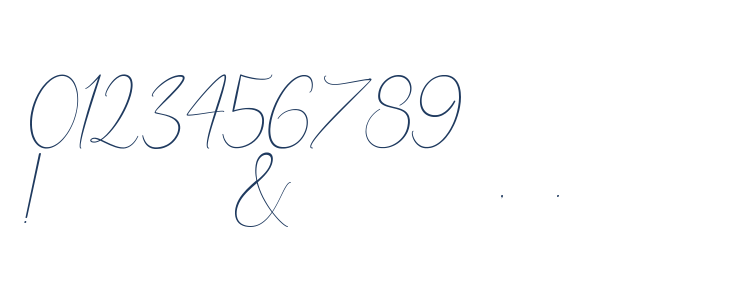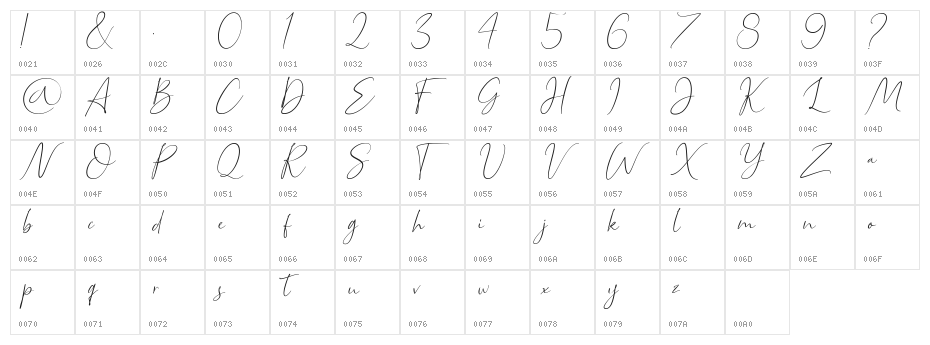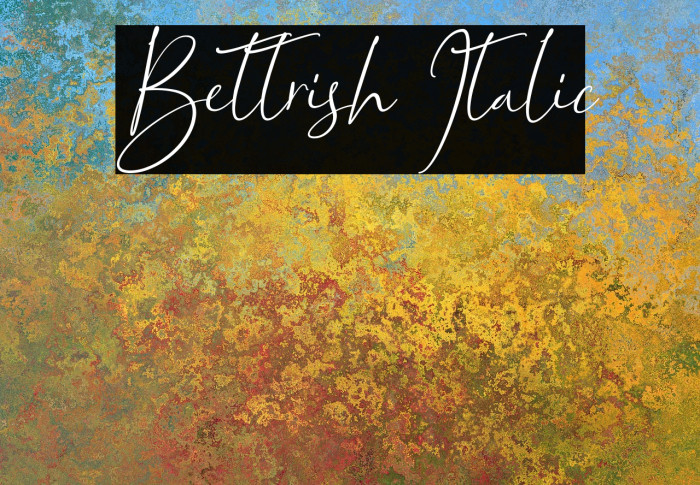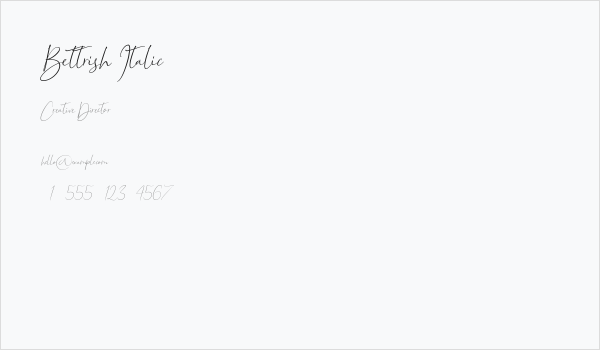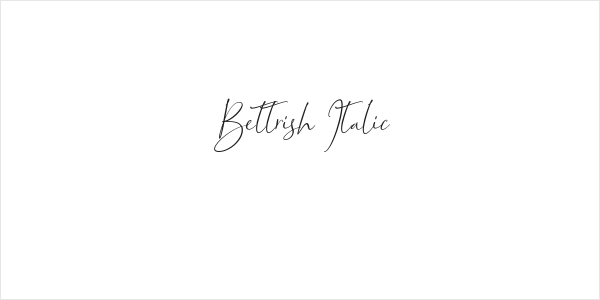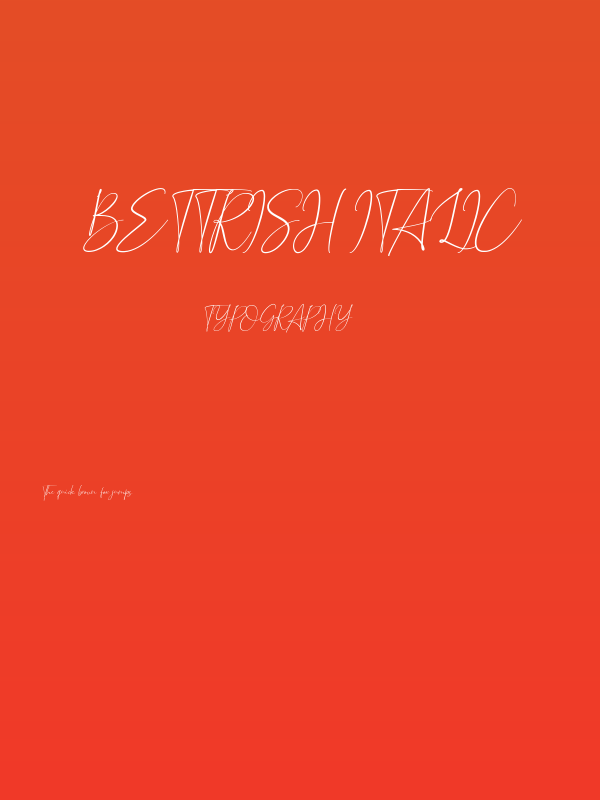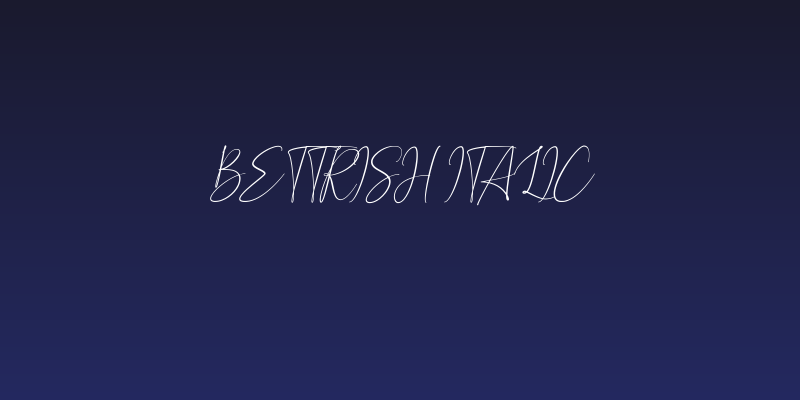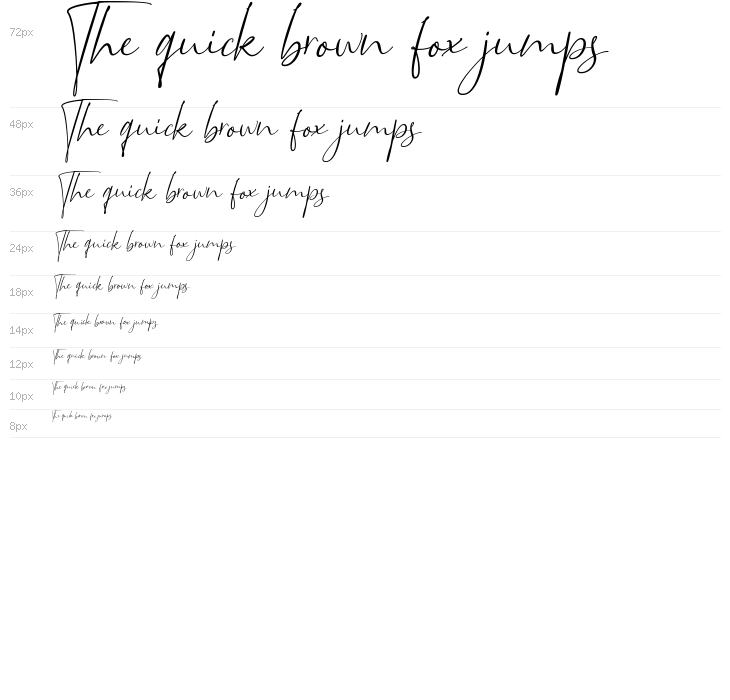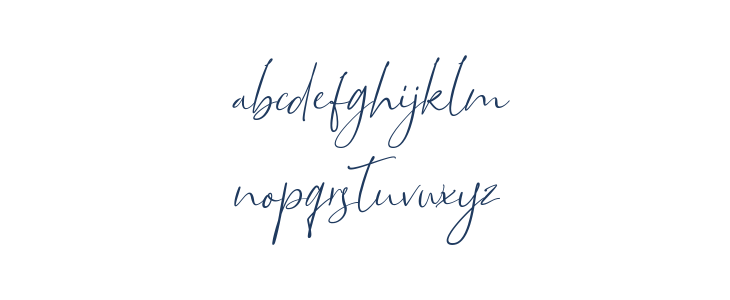
Bettrish Italic Font
Bettrish Italic Description
This font exudes a sophisticated and elegant style, characterized by its flowing, cursive script. The letters are gracefully elongated with a delicate, hand-drawn appearance, giving it a personal and artistic touch. The uppercase letters are bold and sweeping, while the lowercase letters maintain a consistent fluidity, enhancing readability. Numbers and special characters are seamlessly integrated, maintaining the overall aesthetic. The thin strokes and high contrast between thick and thin lines add a sense of refinement and luxury, making it ideal for creative and formal applications.
| Proposed Projects | Ideal for wedding invitations, elegant branding, personal stationery, and artistic projects. |